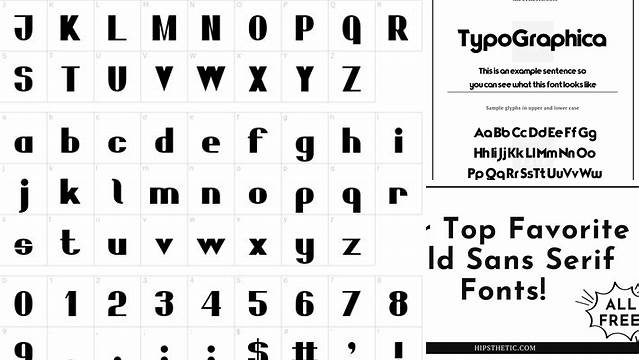
Free Bold Sans Serif Fonts: Download Now
Bold Sans Serif Fonts: Your Ultimate Guide for Free Downloads
Hey guys! Are you on the hunt for some awesome bold sans serif fonts to spice up your designs? You've come to the right place! These fonts are seriously versatile and can make your projects pop, whether you're working on a website, a poster, or even a presentation. In this guide, we'll dive deep into the world of bold sans serif fonts, exploring what makes them so great, where to find them, and how to use them effectively. Plus, we'll focus on the best part: getting these fonts for free! Let's get started, shall we?
What Makes Bold Sans Serif Fonts So Special?
Okay, so what's the big deal about bold sans serif fonts? Well, first off, let's break down what that even means. "Sans serif" refers to fonts that don't have those little "serifs" – the small lines or strokes at the ends of letters. Think of fonts like Arial or Helvetica; those are classic examples of sans serif fonts. Now, "bold" simply means that the font has a thicker stroke weight, making it stand out and catch the eye. So, put them together, and you've got a font that's clean, modern, and super attention-grabbing.
Bold sans serif fonts are incredibly versatile. They work well in a ton of different contexts, making them a go-to choice for designers of all levels. For instance, they're perfect for headings and titles because their thickness ensures they're easily readable, even from a distance. Imagine a website header or a magazine title – a bold sans serif font will grab your attention immediately. They also lend themselves well to body text, especially when you need to emphasize certain words or phrases. Using a bold sans serif font in the body can create visual hierarchy and guide the reader's eye through the content. These fonts are also great for branding. Many companies use bold sans serif fonts in their logos and marketing materials because they project a sense of modernity, professionalism, and clarity. They're clean and straightforward, which is ideal for conveying a brand's message. Plus, they work across different platforms, from print to digital, so you don't have to worry about compatibility issues.
Think about the websites you visit daily. Chances are, you're seeing bold sans serif fonts everywhere, in ads, on social media, and in the very text you're reading. They're trendy, yes, but they're also timeless. Their simplicity means they won't go out of style anytime soon. The versatility and readability of bold sans serif fonts make them a cornerstone of modern design. Choosing a bold sans serif font isn't just about aesthetics; it's about functionality and usability. In digital design, where readability is paramount, the clear lines and strong presence of these fonts make them invaluable. The boldness ensures that the text doesn’t get lost in the visual noise of a screen, making sure your message gets through. Consider the impact these fonts have on UI/UX design. Clear, easily readable text is crucial to a good user experience. These fonts contribute to that by providing crisp text, guiding the user through the interface, and helping them interact intuitively with the design. They make sure your audience can understand your content without struggling to read.
Where to Find Free Bold Sans Serif Fonts
- BeFonts: A collection of some of the best bold sans serif fonts. They provide a wide variety of fonts. It is easy to use, easy to download, and very diverse.
- FontSpace: This website offers a wide range of free fonts from various designers. It's a good place to discover unique and interesting bold sans serif fonts you might not find elsewhere.
When browsing these sites, keep an eye out for the licensing information. Most free fonts will be available under a license that allows for personal use, but if you plan to use the font for commercial purposes (like in your business logo or on products you sell), you'll need to check if the license permits that.
Tips for Using Bold Sans Serif Fonts Effectively
So, you've downloaded some awesome bold sans serif fonts – now what? Here are a few tips to help you use them effectively and make your designs shine:
Choose the Right Font: Not all bold sans serif fonts are created equal. Some have a more modern feel, while others are more classic. Consider the overall tone of your project and choose a font that matches. For example, if you're designing a website for a tech startup, you might choose a sleek, minimalist font. If you're working on a poster for a vintage event, you might lean towards a font with a more retro vibe.
Use it Sparingly: While bold sans serif fonts are great for headlines and titles, using them excessively can be overwhelming and make your design look cluttered. Use them strategically to highlight important information and create visual interest. A good rule of thumb is to use them for headings and subheadings and then pair them with a more readable font for body text.